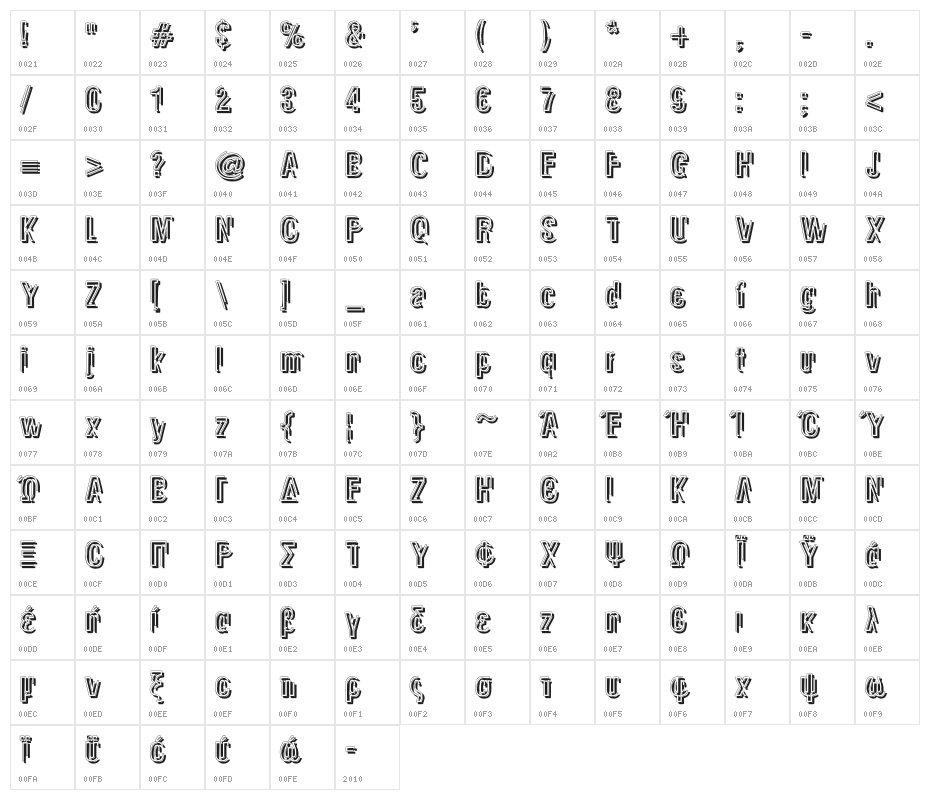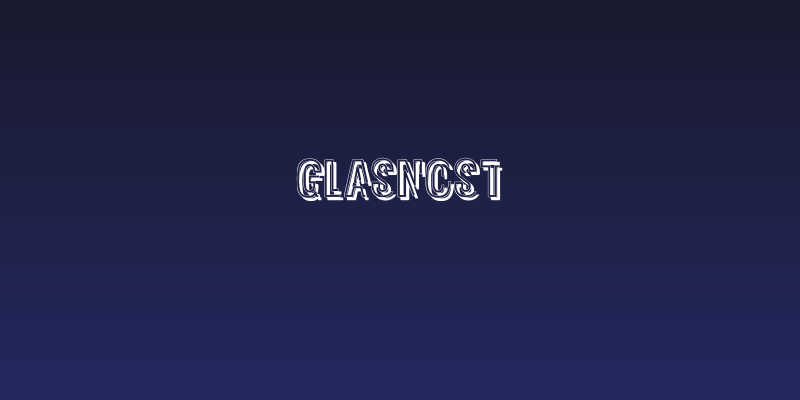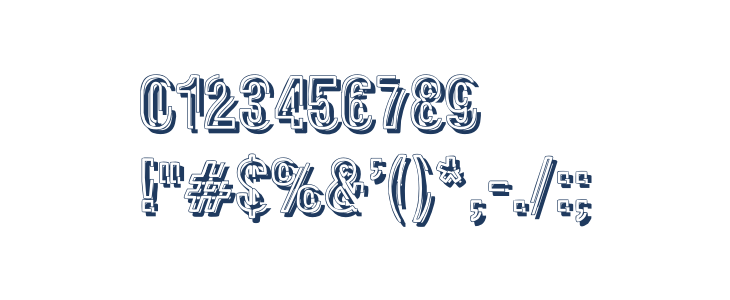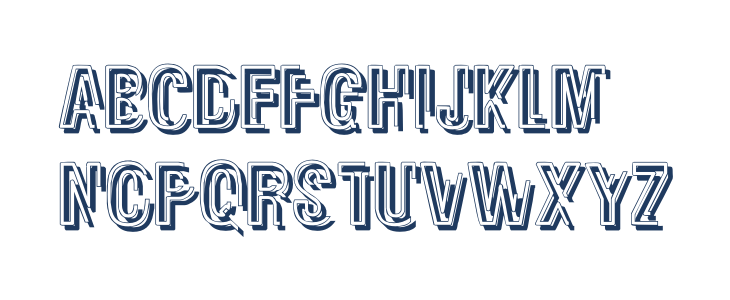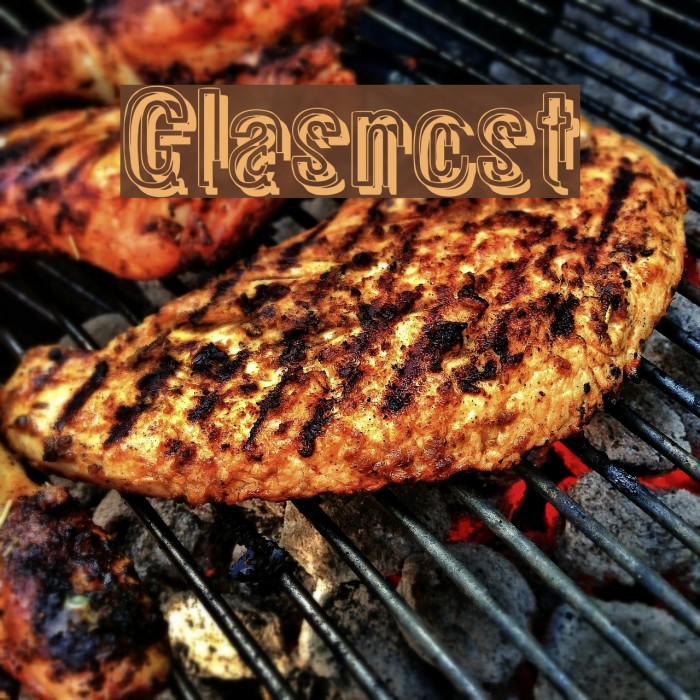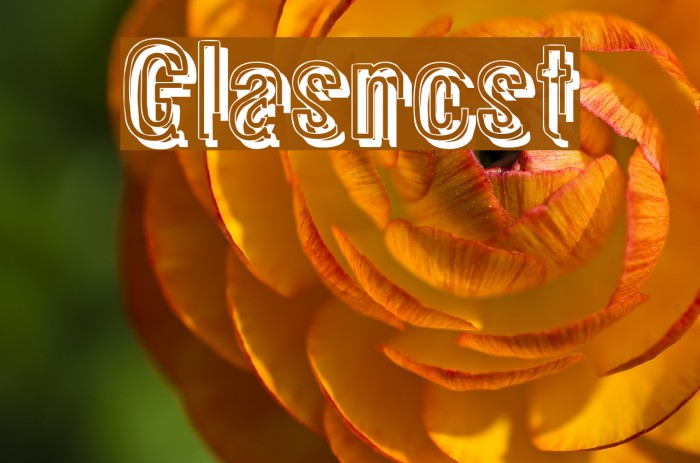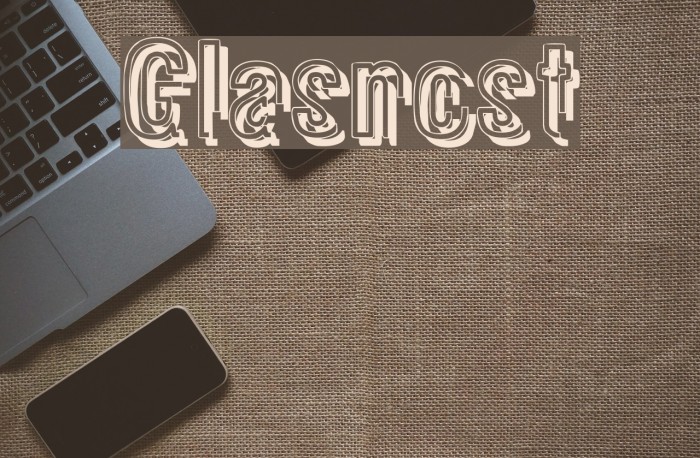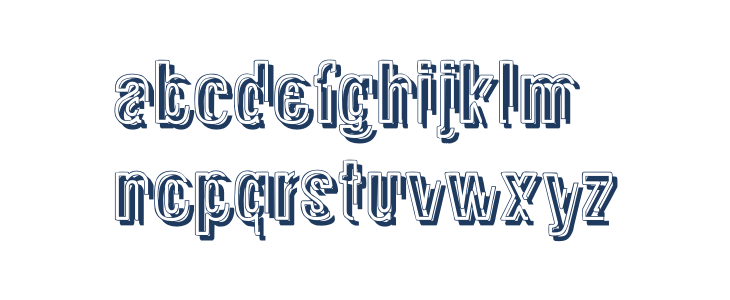
Glasnost Font
Glasnost Description
This font features a bold, decorative style with a three-dimensional effect created by its shadowed outline. The uppercase and lowercase letters maintain a consistent width, giving it a uniform appearance. The characters are designed with a playful, retro aesthetic, making it stand out in any design. The numbers and special characters follow the same stylistic approach, ensuring cohesion across all elements. Its unique style is perfect for projects that require a touch of vintage flair combined with modern boldness.
| Overall Style | Retro, Decorative |
| Proposed Projects | Ideal for poster designs, retro-themed branding, eye-catching headlines, and creative advertising campaigns. |